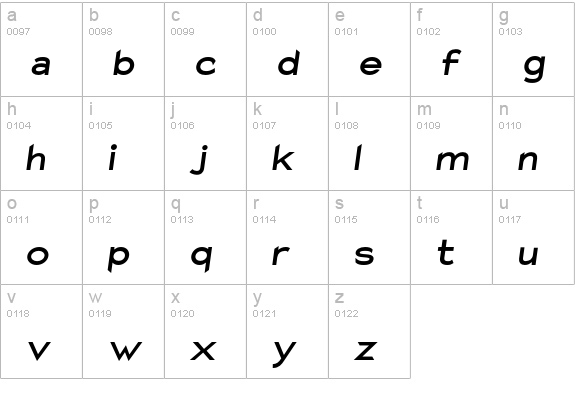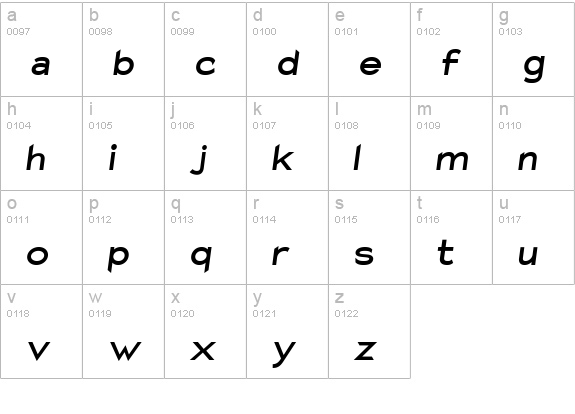
Charger ExtraBold Italic Font Details
Charger ExtraBold Italic is an extra-heavy, attention-grabbing, italic variant in the Charger typeface family \xE2\x80\x94 well suited to high-impact headlines, posters, and bold branding.
Introducing Charger ExtraBold Italic font, a powerful and eye-catching typeface that exudes confidence and sophistication. This font is perfect for making a bold statement in your designs, whether it's for branding, advertising, headlines, or any project that requires a strong and impactful look. With its thick and slanted letterforms, Charger ExtraBold Italic adds a touch of dynamism and energy to your typography. It demands attention and effortlessly stands out from the crowd, making it ideal for creating impactful headlines and titles that leave a lasting impression. One of the best things about Charger ExtraBold Italic is that it is freely available to download at FontsMarket.com. This means that you can easily access and use this font in your projects without any hassle. Whether you're a professional designer or a hobbyist, having access to high-quality fonts like Charger ExtraBold Italic can greatly enhance the visual appeal of your work. Furthermore, Charger ExtraBold Italic offers versatility in its usage. It pairs exceptionally well with both serif and sans-serif typefaces, allowing you to create unique and visually appealing combinations. Its italicized style adds a touch of elegance and sophistication, making it a great choice for projects that require a modern and sleek aesthetic. The robust and well-defined letterforms of Charger ExtraBold Italic ensure legibility even at small sizes, making it suitable for various media, including print and digital platforms. Whether you're designing posters, websites, packaging, or social media graphics, this font will make your text pop and leave a lasting impression on your audience. In summary, Charger ExtraBold Italic is a free font that combines power, elegance, and versatility. Download it now from FontsMarket.com and let this font elevate your designs to new heights. Whether you're aiming for a strong and impactful look or a sleek and modern aesthetic, Charger ExtraBold Italic has got you covered.